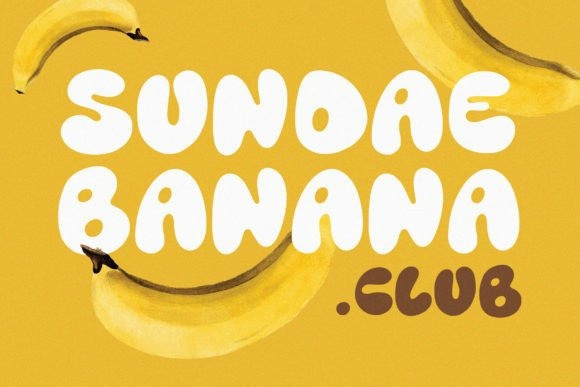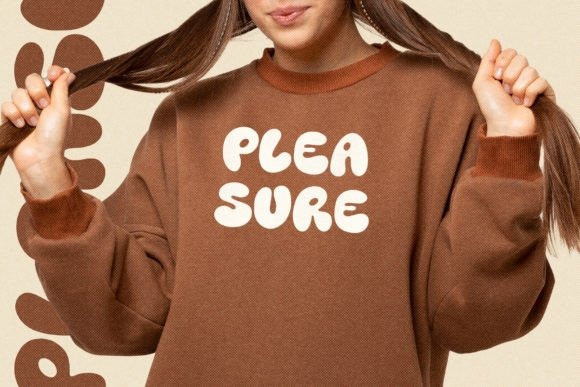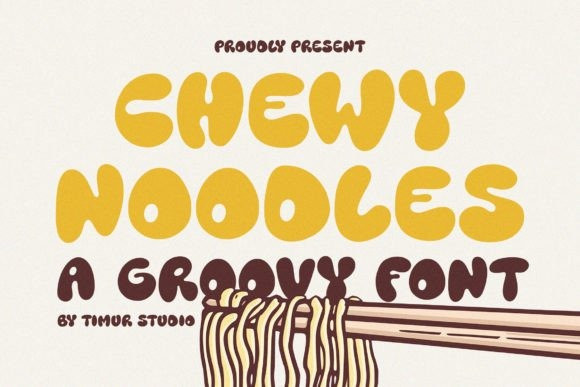
Chewy Noodles Font
Chewy Noodles Font is a retro and vibrant choice for your design projects. With its funky and playful letterforms, this font captures the essence of the groovy era. The bold and exaggerated strokes give the Chewy Noodles font a lively and energetic aesthetic, perfect for adding a retro and nostalgic touch to your branding materials, posters, and album covers.